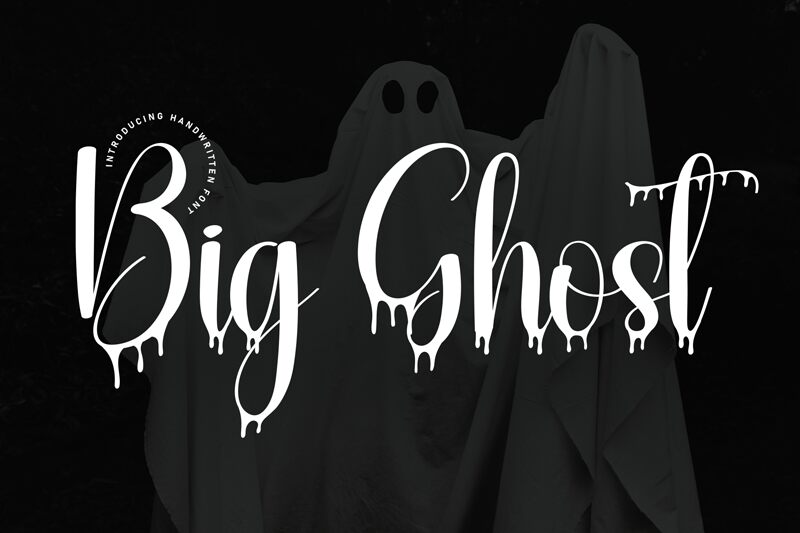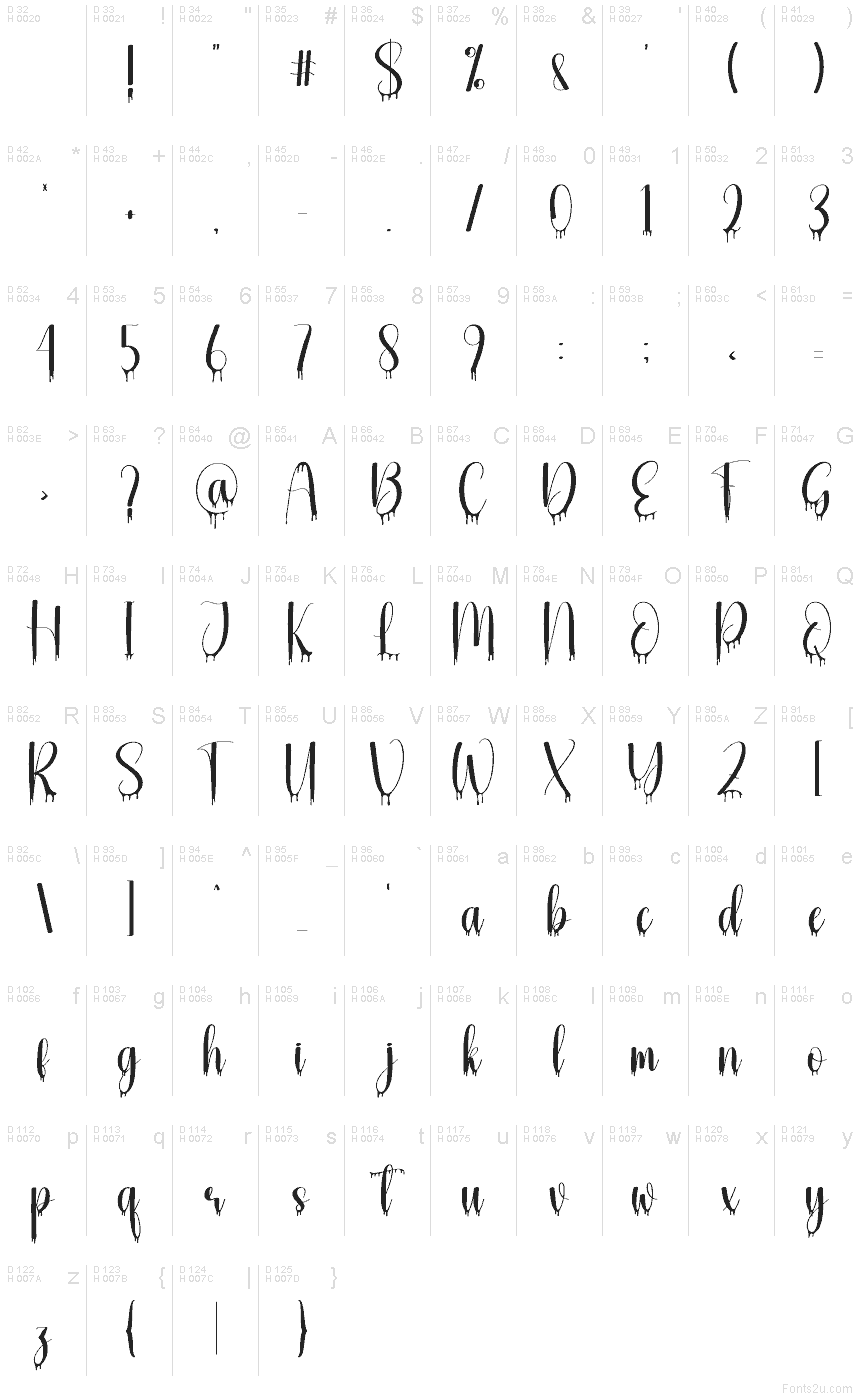
Big Ghost
Big Ghost font by Scratchones is a free Halloween display script font. Its hook is the elegant, inky handwriting that melts into syrupy drips—cute and creepy in the same breath. Tall, lively strokes give it a bouncy rhythm, while the glossy “goo” tails add instant atmosphere, like wet paint sliding down a window. Set it big and let the drips breathe; the shapes do the storytelling.
Using Big Ghost, headlines leap off party invitations, haunted house flyers, yard signs, seasonal packaging, social media promos, treat bag labels, and YouTube thumbnails. The forms read quickly at a glance, but the drips linger just enough to sell the mood. For balance, pair this free font with a plain, compact sans serif and keep the body copy small and steady to frame the splashy script.